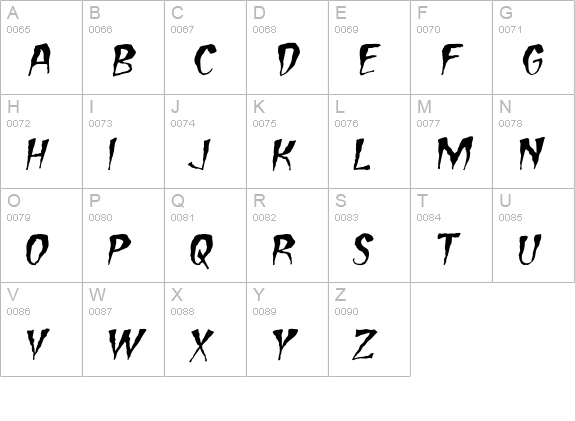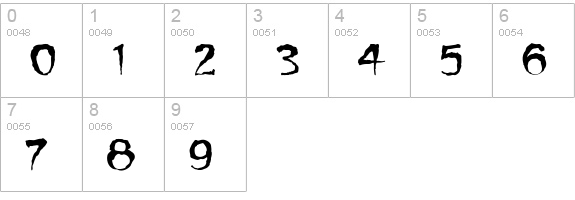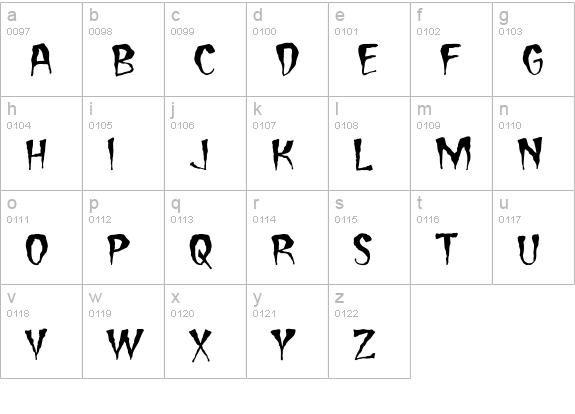
CCCarryOnScreaming Font Details
CCCarryOnScreaming font is a whimsical and playful typeface that exudes a sense of fun and creativity. With its quirky yet legible design, this font is perfect for adding a touch of personality to any project. The unique character shapes and hand-drawn style make CCCarryOnScreaming font a great choice for a variety of design applications, from branding to greeting cards to social media graphics. Best of all, CCCarryOnScreaming font is available for free download at FontsMarket.com. So go ahead and add a dose of charm and character to your designs with this delightful font today!